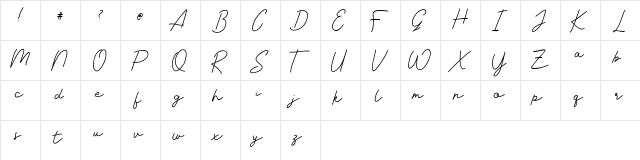
Livvie Signature Regular
Design Context for Livvie Signature Typeface
Livvie Signature is a composed and adaptable typeface that performs quietly and consistently across a wide range of design contexts.